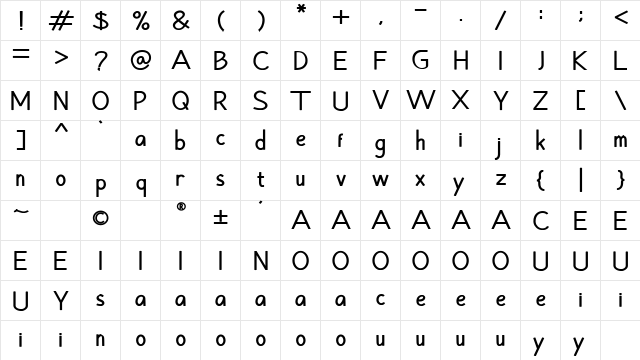
Hansville Bold
Design Context for Hansville Typeface
Hansville offers clean, dependable letterforms without strong stylistic allegiance, making it a practical choice for designers who need flexibility. The heavy weight commands attention and anchors typographic hierarchies.
Pro Tip: Use Hansville in both headline and body roles to test its range before committing to a single application.